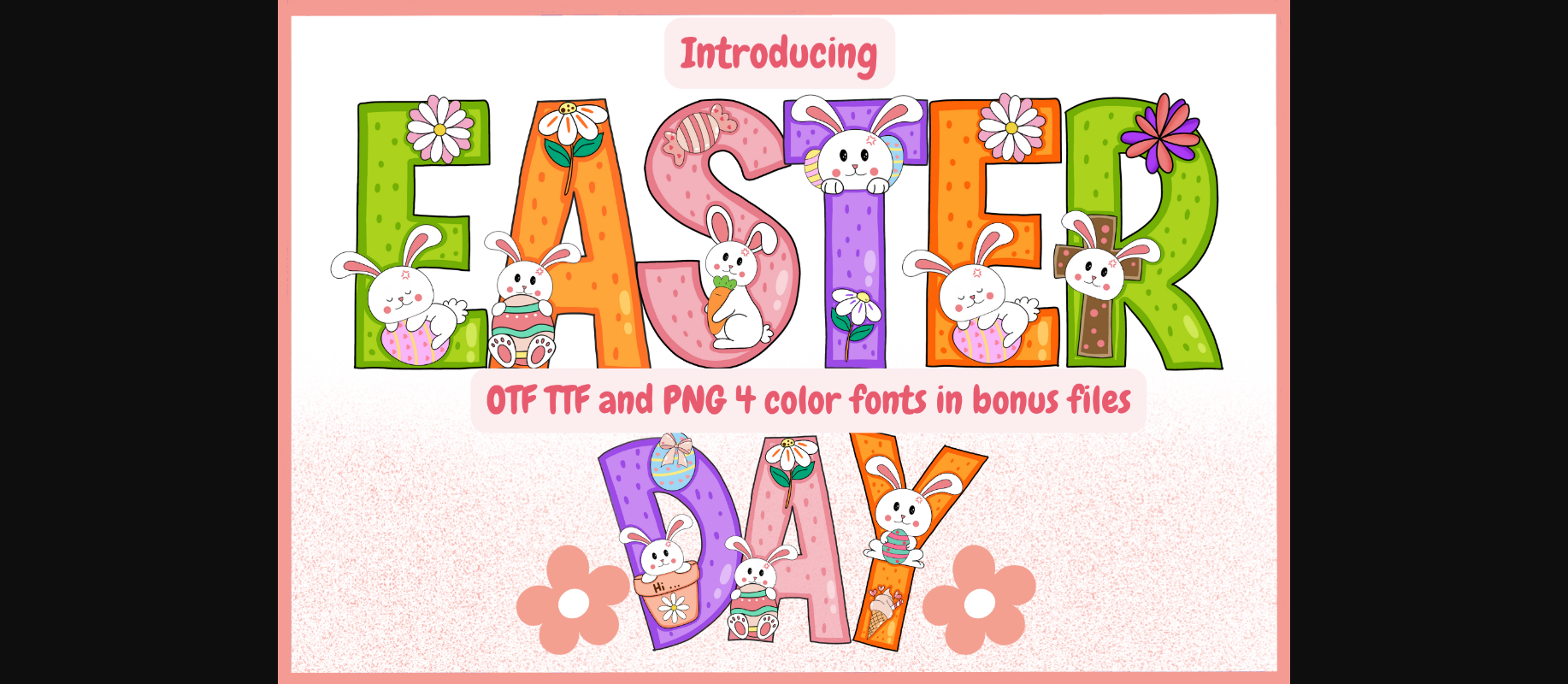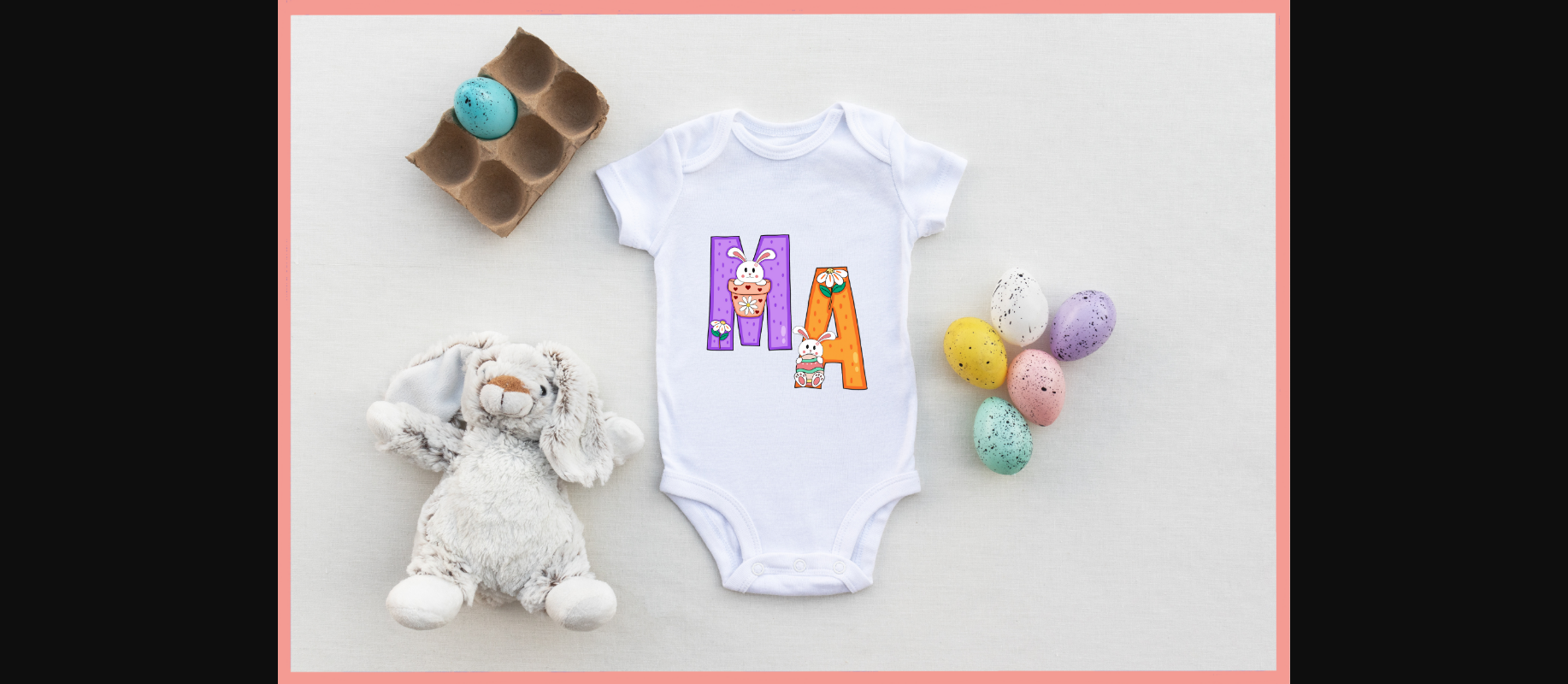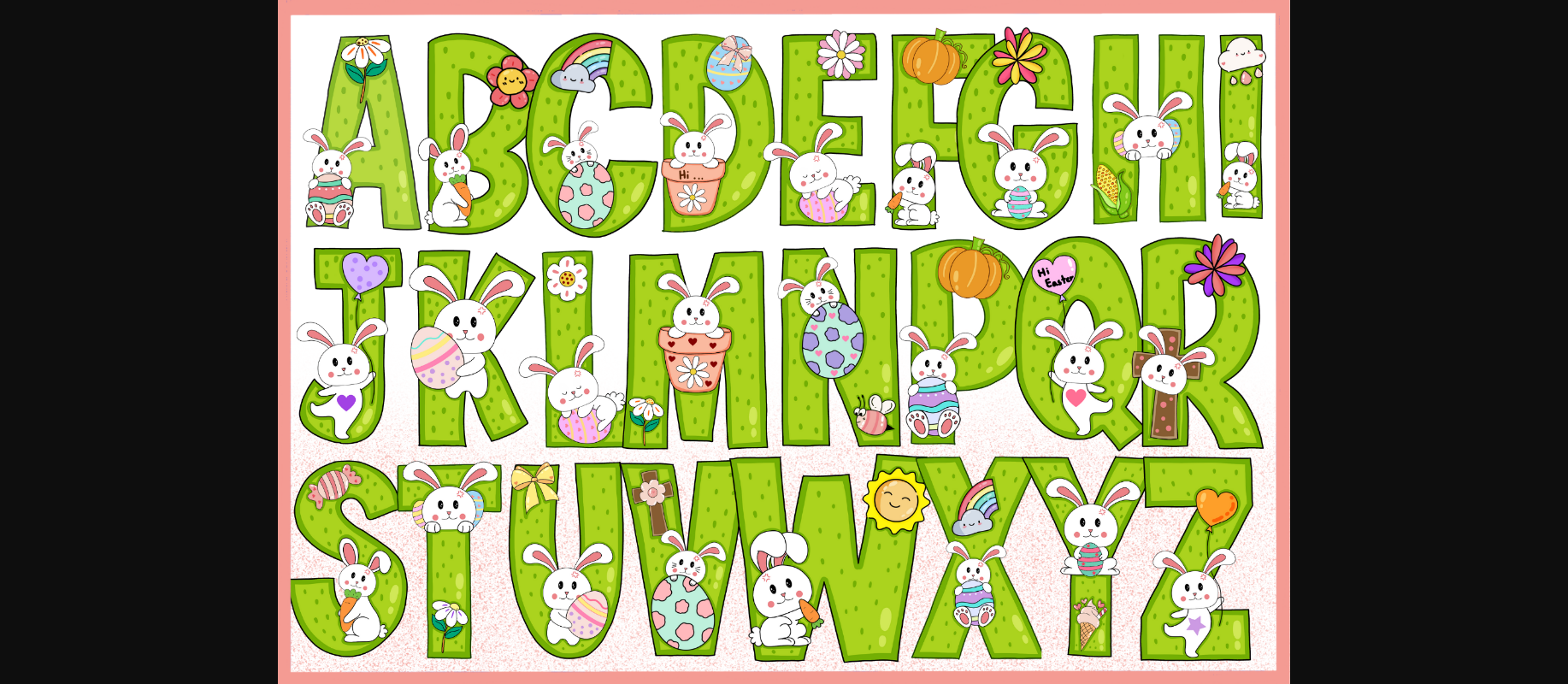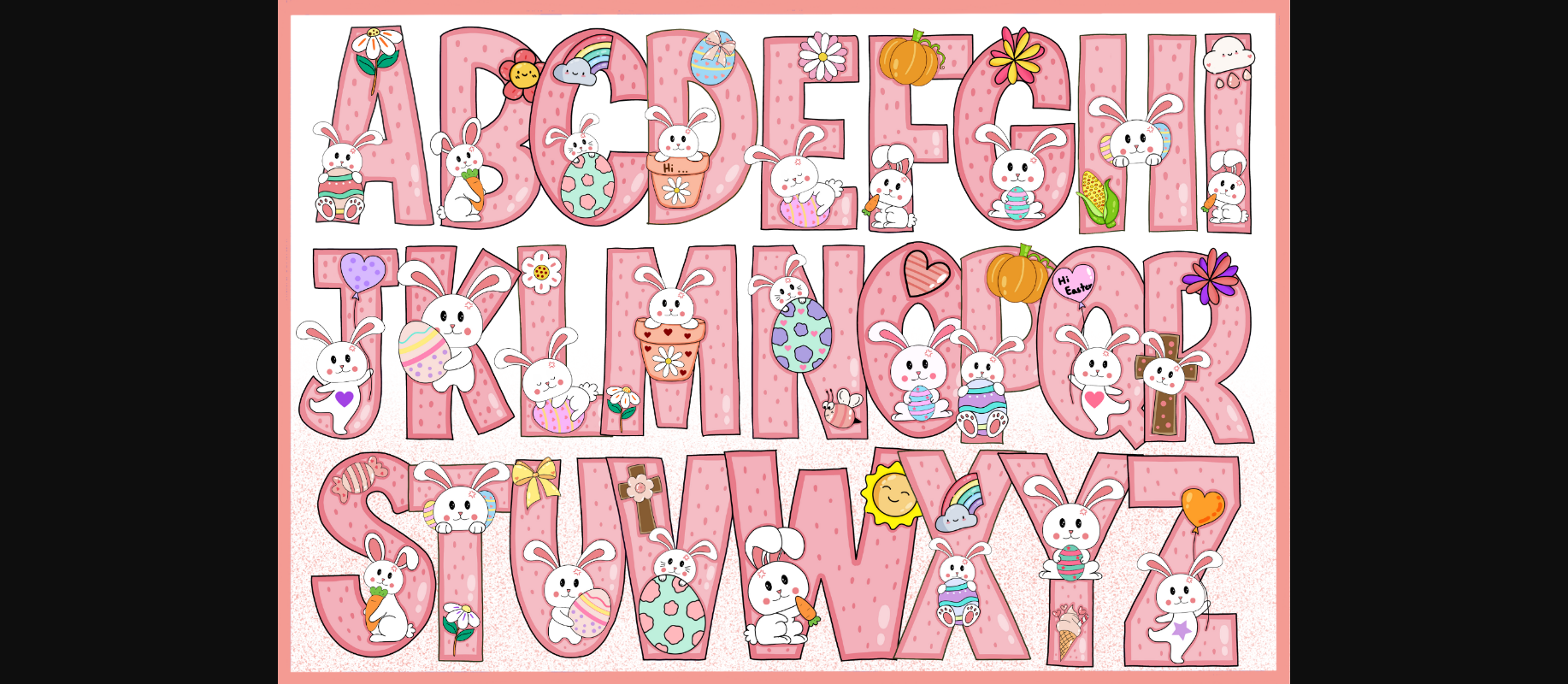
About Easter Day Font
Easter Day is an adorable decorative font that brings the joy of the season to life. With cute bunnies, flowers, and Easter eggs adorning each letter, this font is a playful and festive choice for your projects. Capture the spirit of Easter with this charming typeface, perfect for creating invitations, cards, and designs that radiate happiness and celebration. Let Easter Day add a delightful touch to your text, making every word as cheerful as the holiday itself.